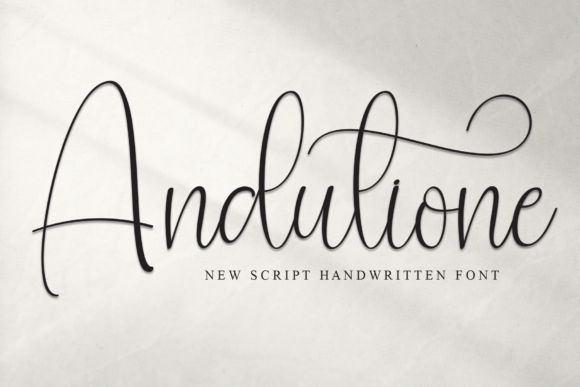
The Perfect Blend of Style and Sophistication
As a designer, there’s nothing quite like the thrill of bringing a creative vision to life. Whether you’re crafting a bespoke wedding invitation or designing a brand-new logo, the right font can make all the difference. And that’s exactly where the Andutione Font comes in – a special creative product that’s designed to give you an extraordinary experience.
This beautiful font is perfect for a wide range of projects, from wall displays and social media post logos to advertisements and product packaging. With its latest style letters, you’ll be able to add a touch of elegance and sophistication to any design. And with its versatility, you can be sure that the Andutione Font will be a valuable addition to your design toolkit.
Andutione Font Key Features
- Unique Characteristics: Andutione Font features a unique blend of modern and traditional elements, making it ideal for creative and artistic projects.
Designer Review: Andutione Font
I recently had the chance to work with the Andutione font, and here’s my honest take on it.
- The Andutione font has a unique, hand-drawn feel that can add a touch of personality to your designs.
- The font’s variable weights and styles provide plenty of options for customization.
- The Andutione font supports a wide range of languages, making it a great choice for global projects.
- The font’s irregularities can sometimes make it difficult to read, especially at smaller sizes.
- The Andutione font may not be the best choice for body text or lengthy blocks of text, due to its irregular spacing and letterforms.
Overall, I think the Andutione font is a great choice for headings, titles, or any situation where you want to add a bit of flair to your design. However, it may not be the best fit for every project, so be sure to consider your specific needs before using it.
Andutione Font is ideal for use in modern branding, logos, and typography-based designs. It’s also great for creating eye-catching headings, titles, and captions.
Q: Can I customize Andutione Font to fit my specific design needs?
Yes, Andutione Font is highly customizable. It supports a wide range of OpenType features, including ligatures, swashes, and stylistic sets. You can also use font editors or other software to customize the font to fit your specific design needs. However, please note that any customizations may void the font’s warranty and may require additional licensing fees.